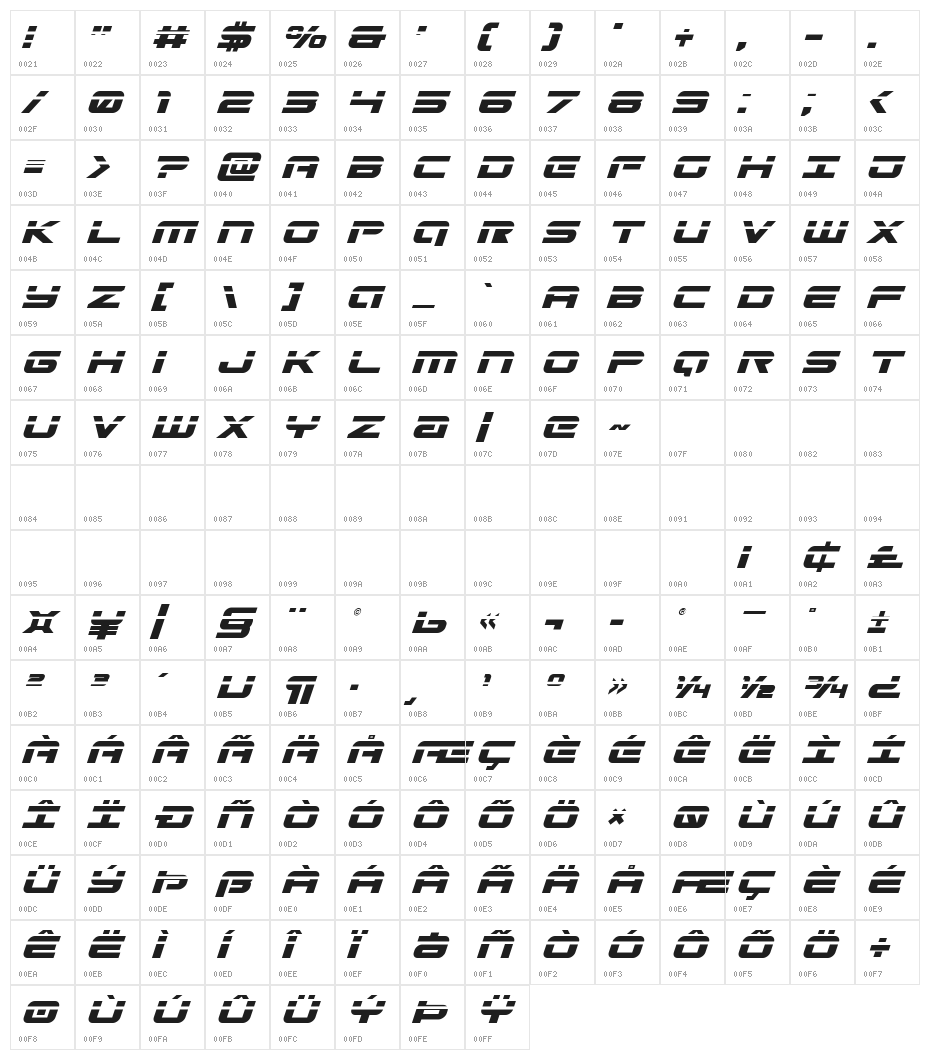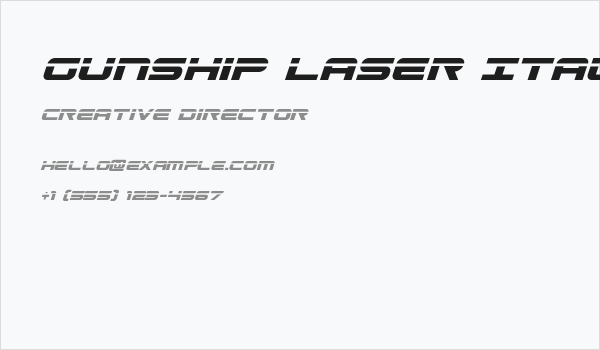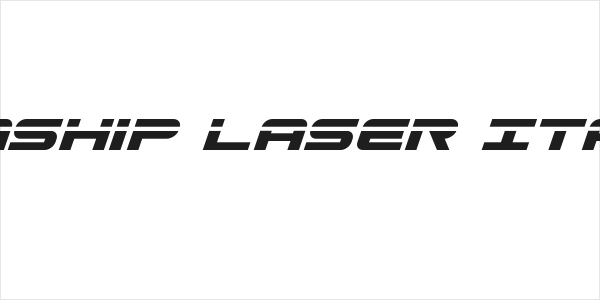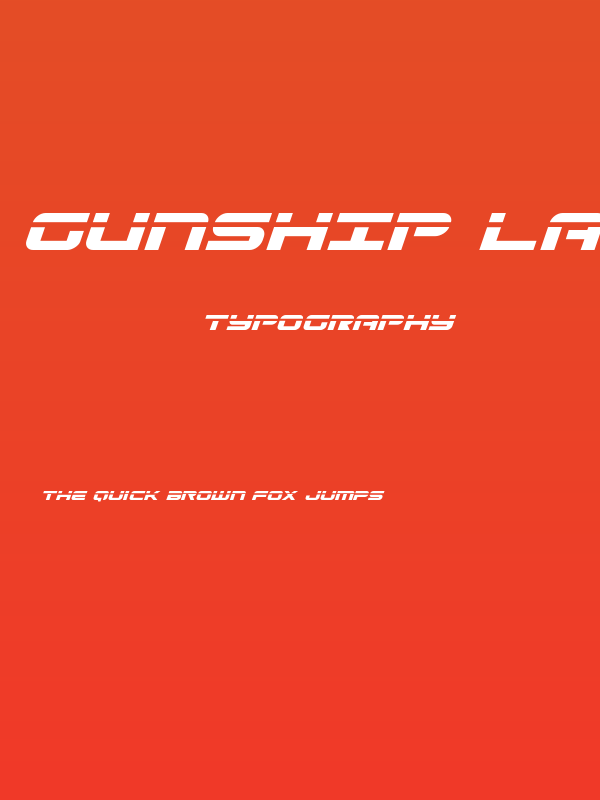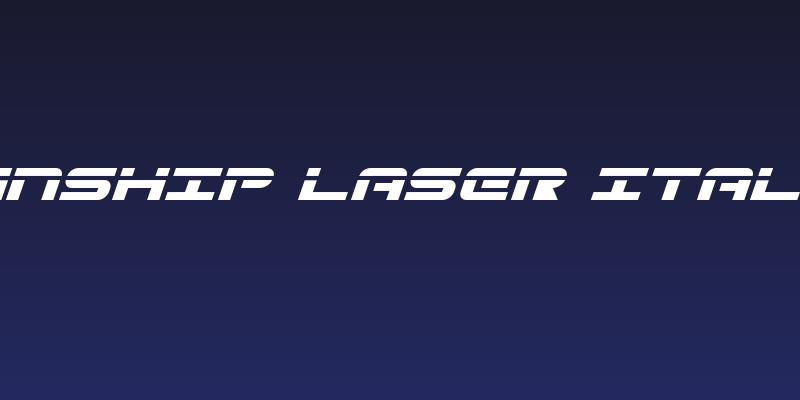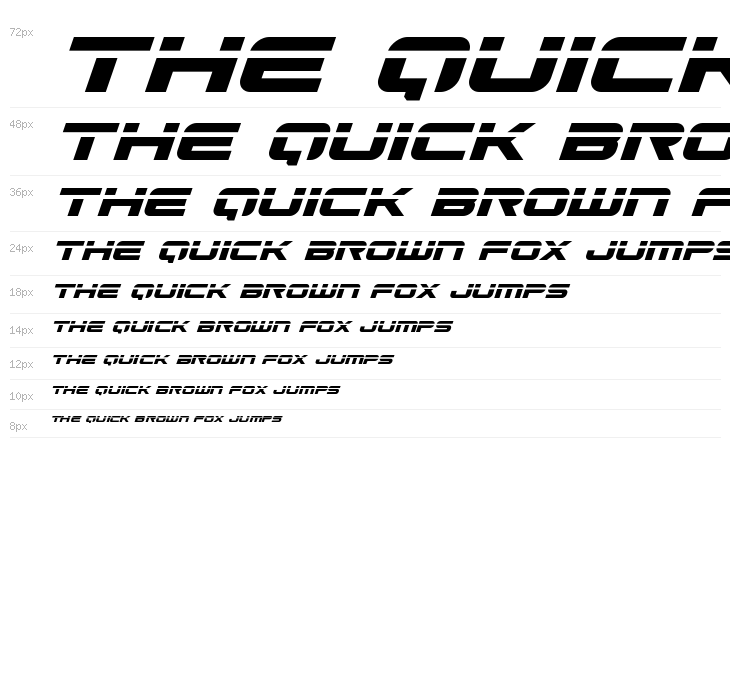
Gunship Laser Italic Font
Gunship Laser Italic Description
This font features a futuristic and angular design, characterized by its sharp edges and italicized form. The letters are bold and dynamic, with a sense of movement that suggests speed and modernity. The geometric shapes and slanted orientation give it a high-tech, sci-fi aesthetic. The uppercase and lowercase letters maintain a consistent style, with the numerals and special characters seamlessly integrated into the overall design. The font's unique style makes it stand out, suitable for projects that require a bold and innovative look.
| Proposed Projects | Ideal for sci-fi themed designs, video game titles, technology branding, and futuristic posters. |